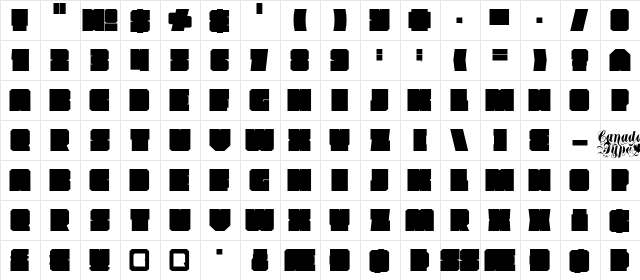
Bigfoot Regular
| Foundry | Canada Type |
Design Context for Bigfoot Typeface
Bigfoot is a composed and adaptable typeface that performs quietly and consistently across a wide range of design contexts.